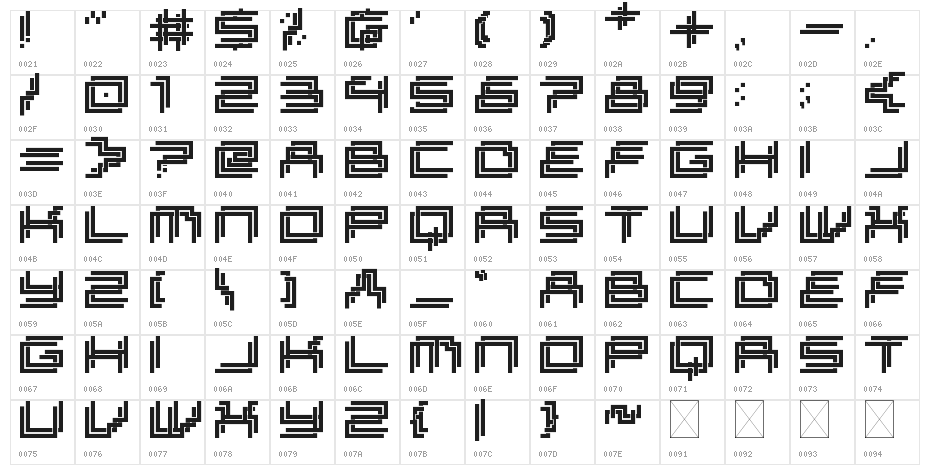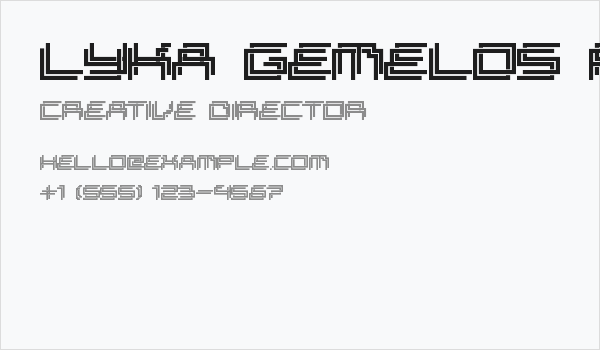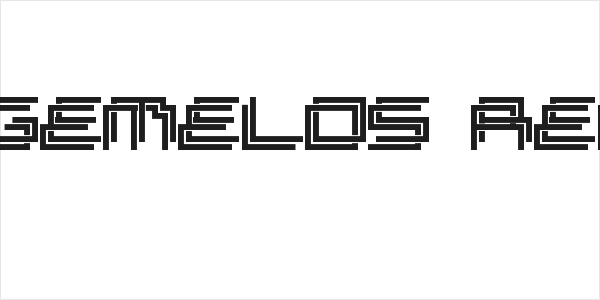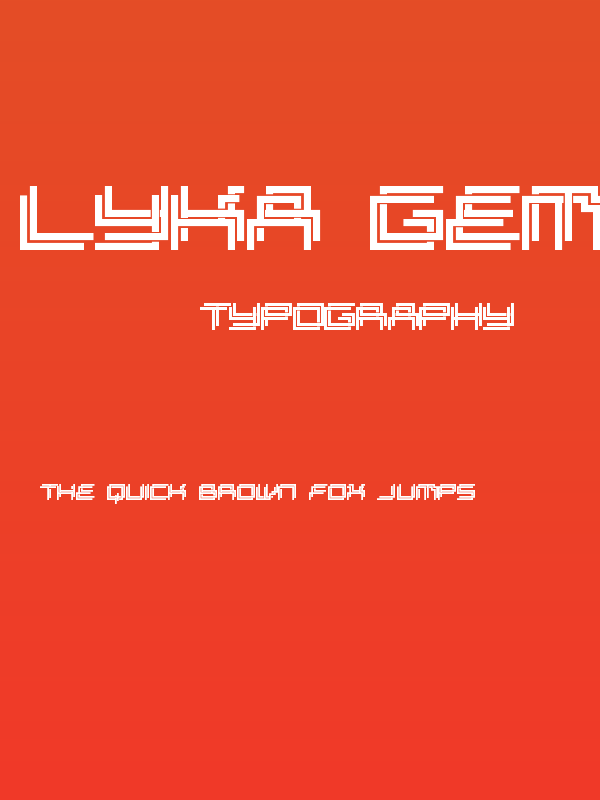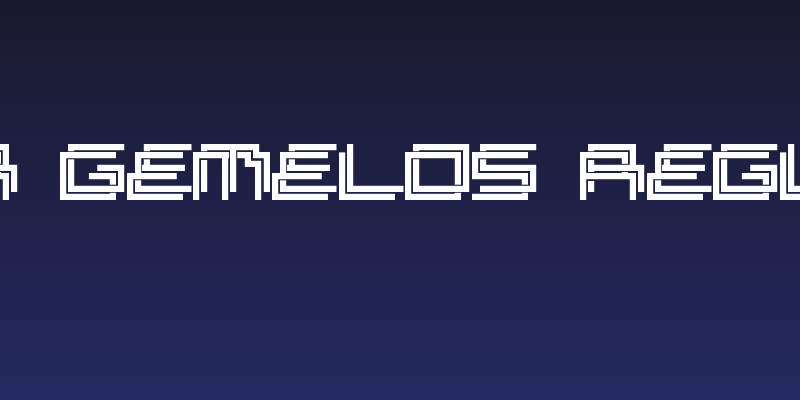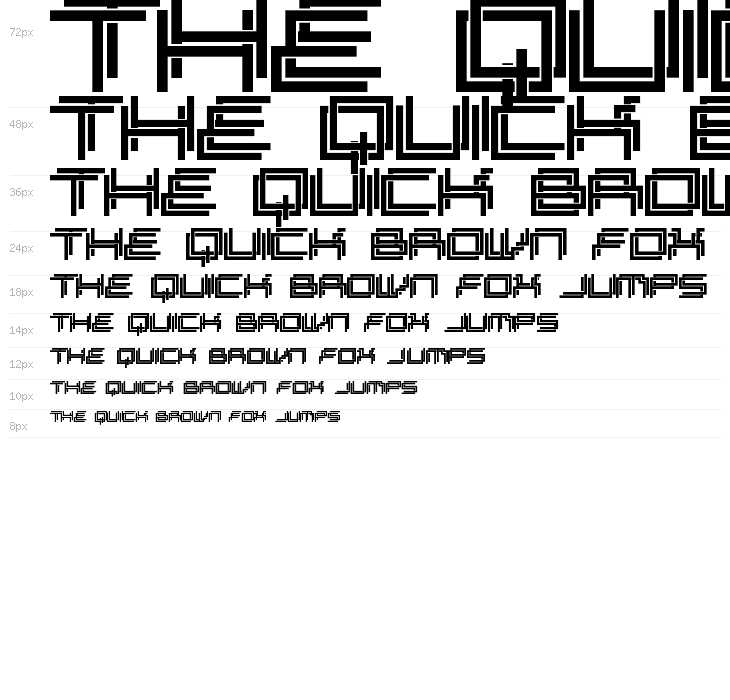
Lyka Gemelos Regular Font
Lyka Gemelos Regular Description
This font features a distinct, geometric design with a pixelated, digital aesthetic. Each character is constructed with bold, block-like strokes that create a sense of structure and modernity. The uppercase and lowercase letters maintain a consistent style, emphasizing angular lines and sharp corners. Numbers and special characters follow the same design principles, ensuring uniformity across the entire typeface. The font's unique appearance makes it ideal for projects that require a futuristic or tech-oriented look.
| Use Case | Logos, Headlines, Digital interfaces |
| Proposed Projects | Ideal for video game graphics, tech branding, digital art projects, and futuristic-themed designs. |